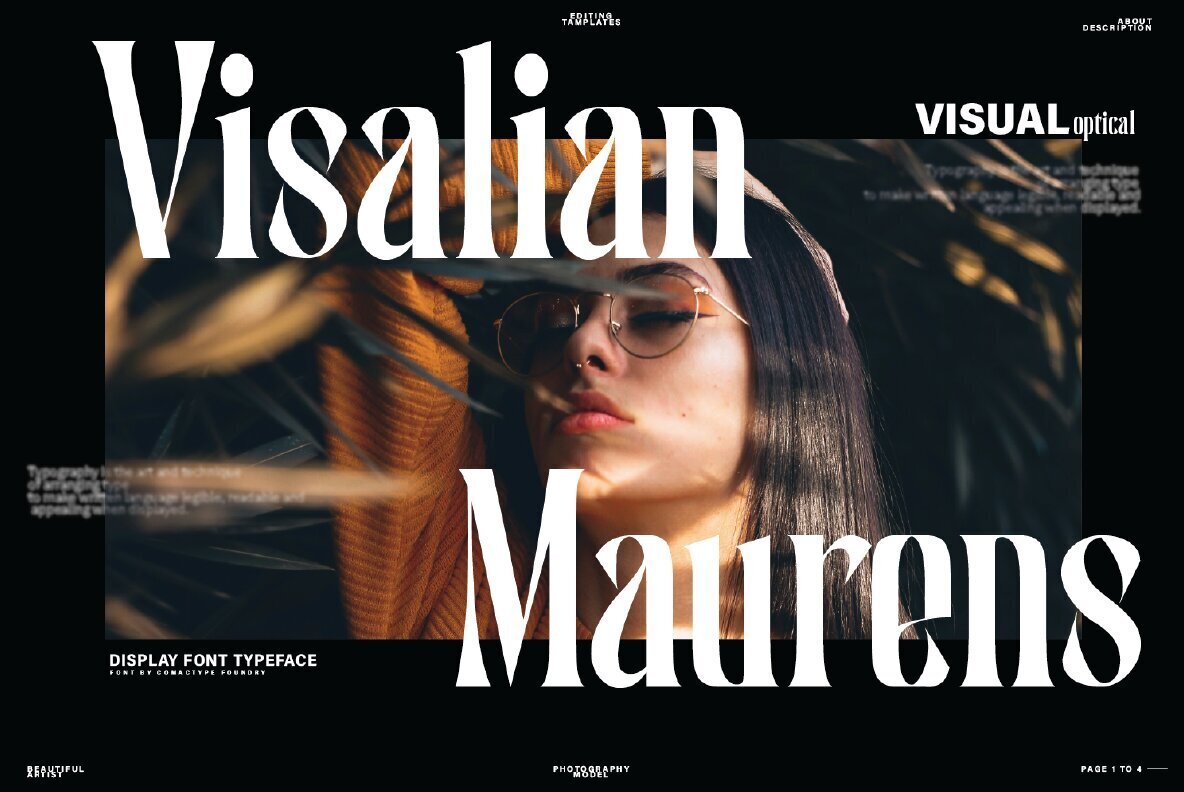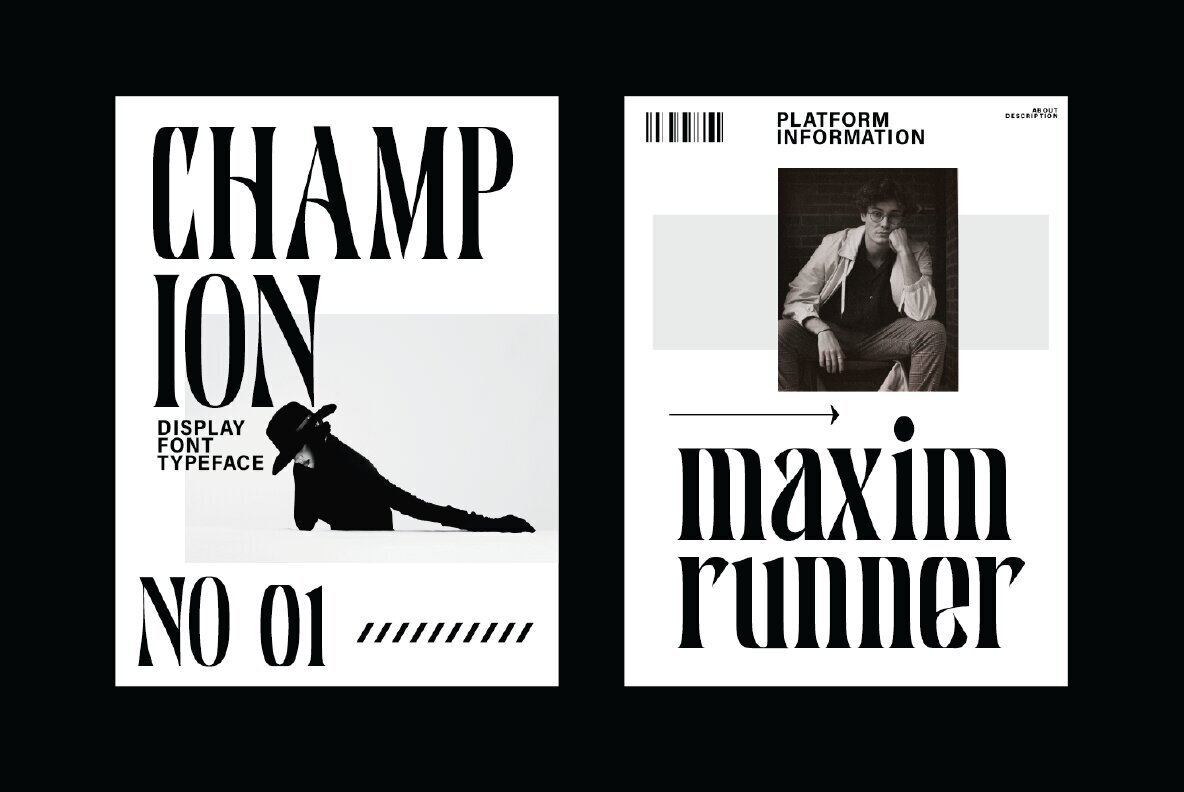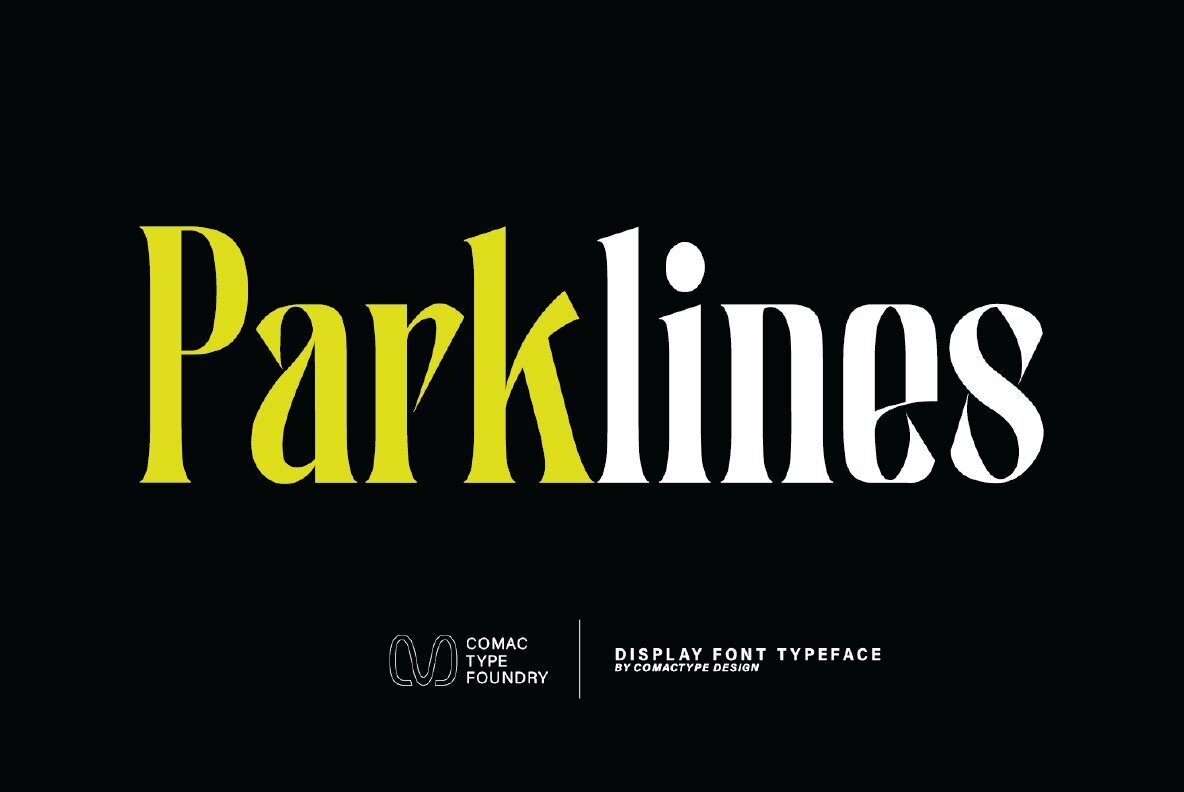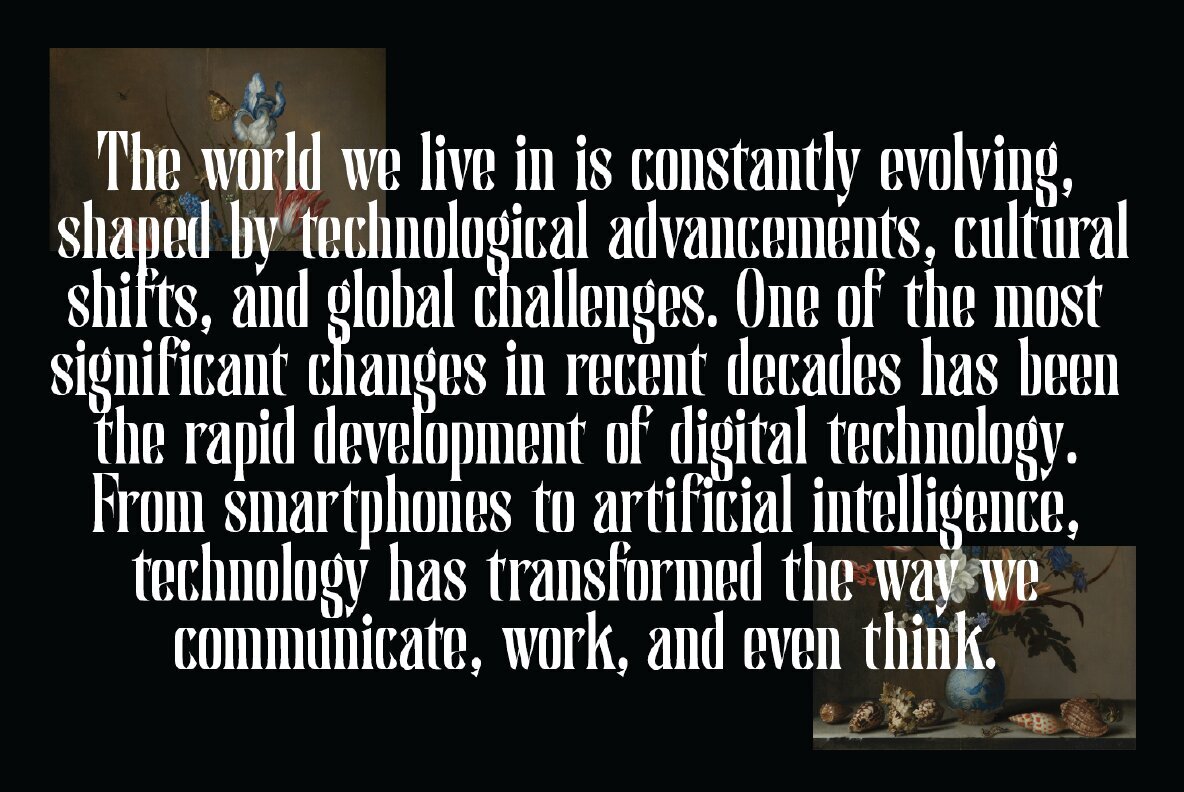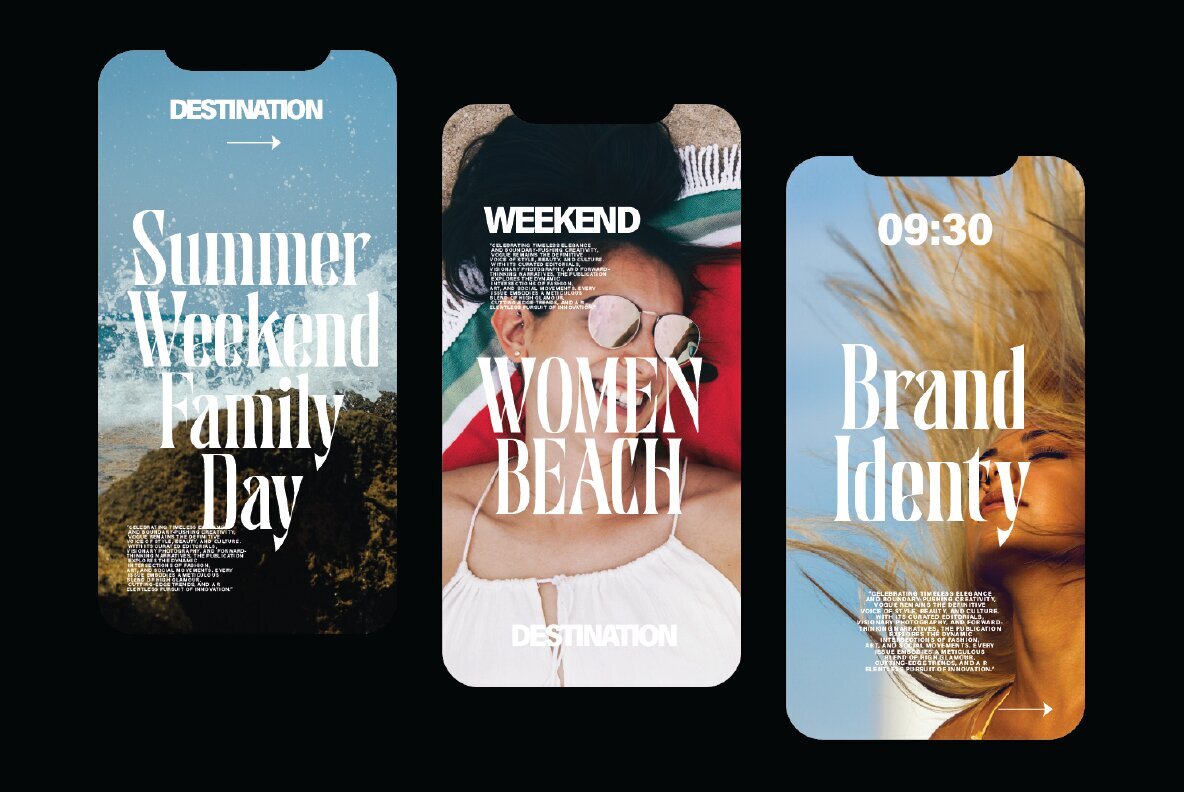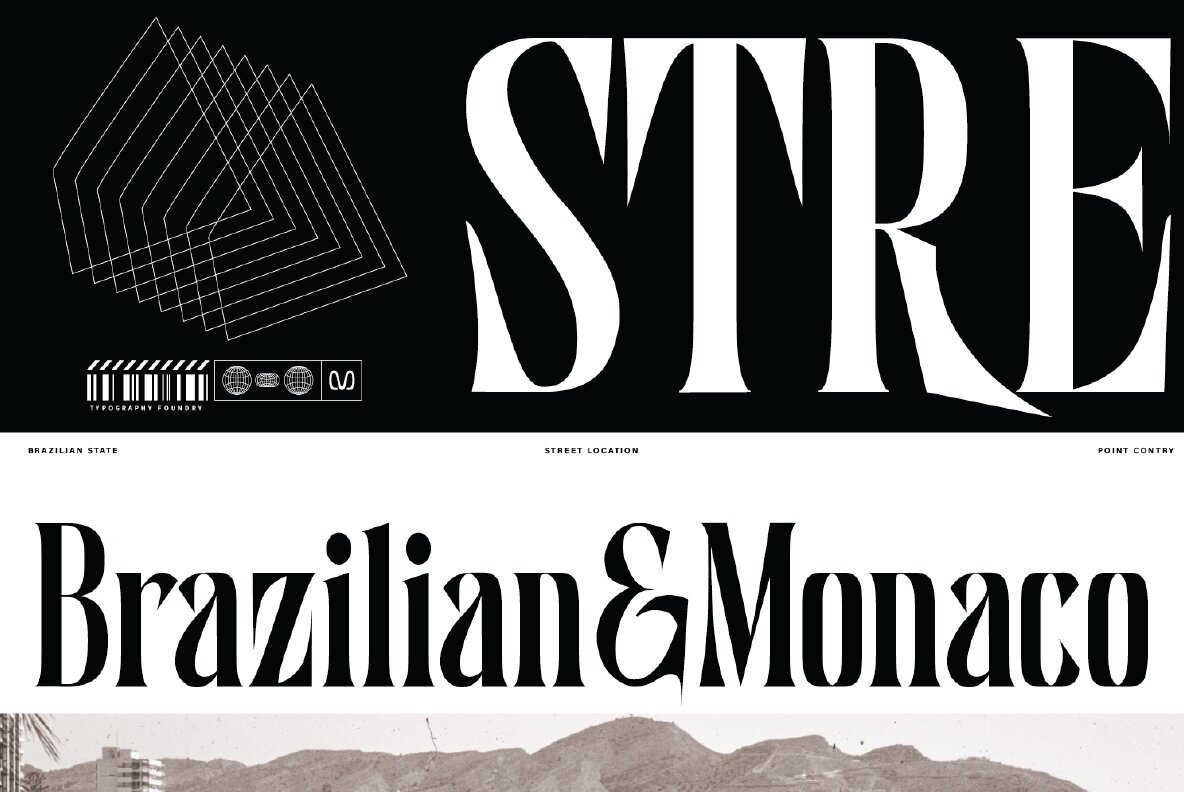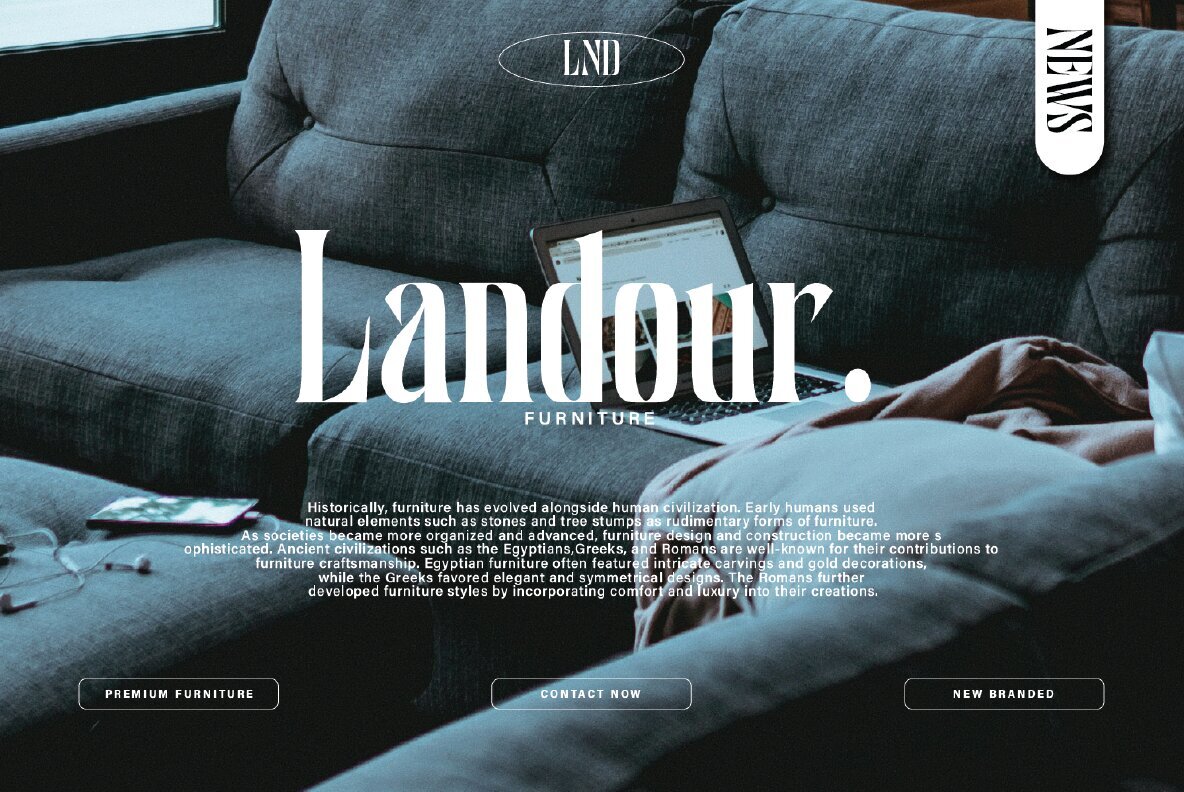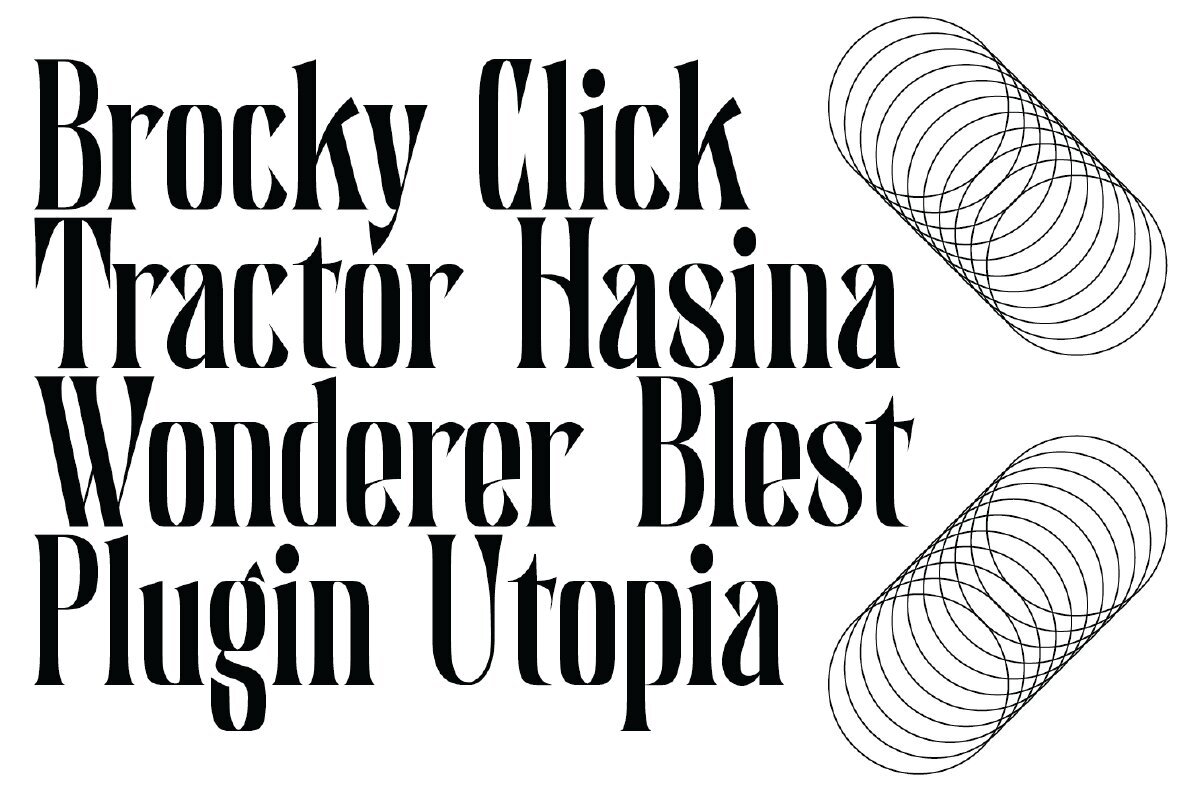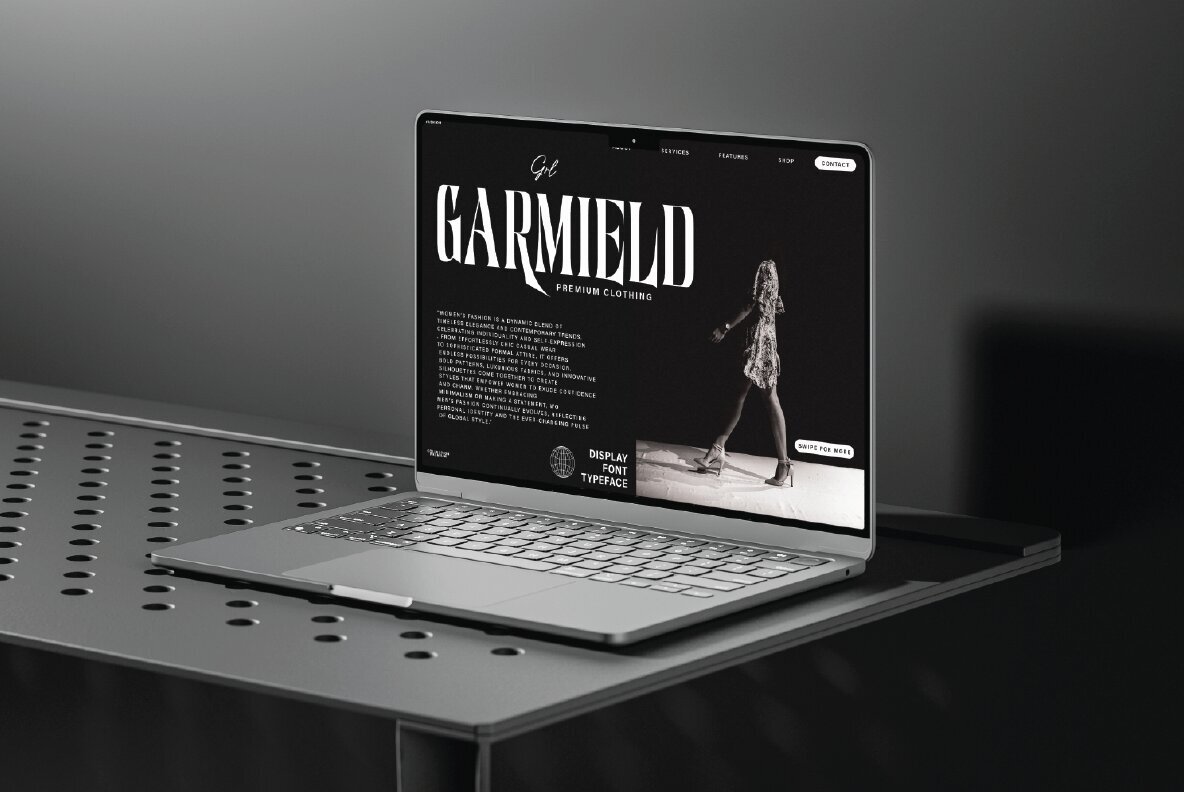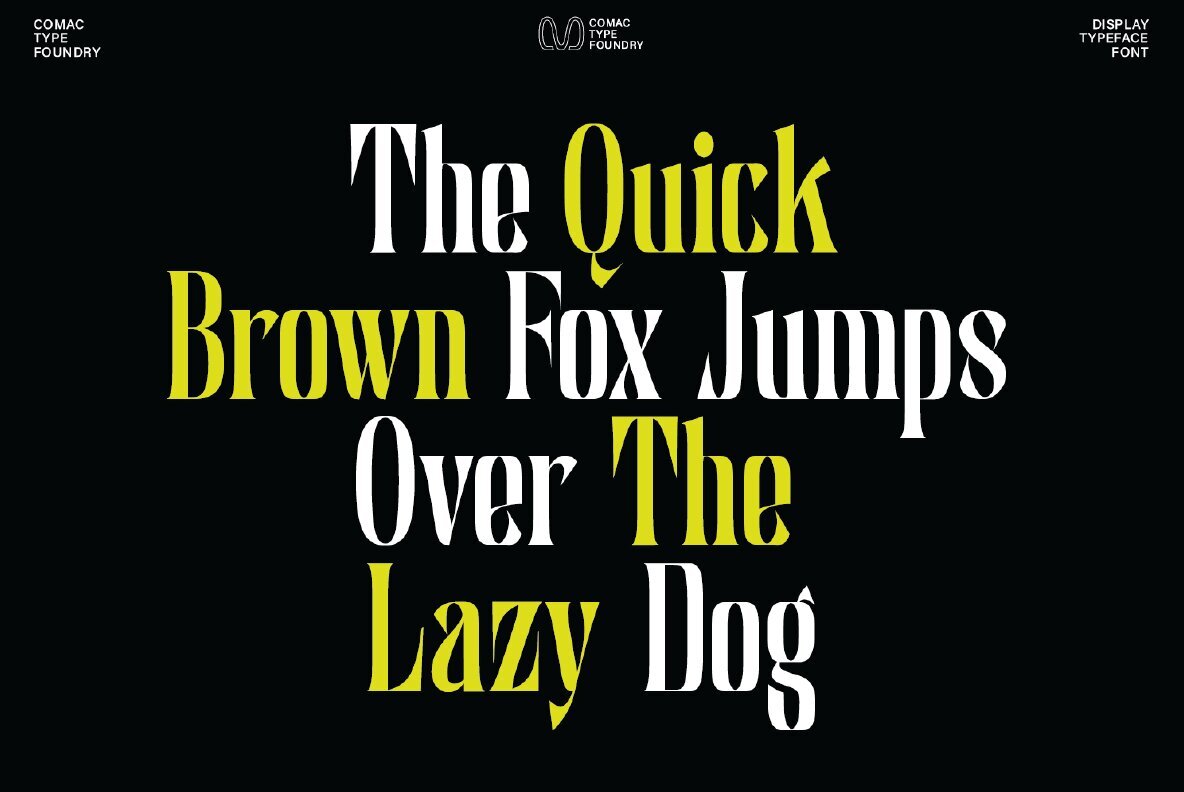
Vintokeys Font
Vintokeys Regular
Vintokeys is a display font designed by Comac Type Foundry featuring a unique and artistic serif style. This font showcases tall and slender letterforms, often accompanied by sharp cuts and distinctive decorative elements. With a blend of classic elegance and bold modernity, Vintokeys adds a sophisticated and experimental touch to various designs. Some letters also come with alternate variations, allowing for greater flexibility in typographic exploration. Vintokeys is ideal for design projects that aim to stand out and establish a strong identity, such as branding, logos, posters, or editorial headlines. Its decorative nature makes it less suitable for long text or small sizes, but when used appropriately, this font exudes a luxurious and refined feel. With its distinctive appearance, Vintokeys is a compelling choice for designers seeking to create visually striking and stylish compositions.